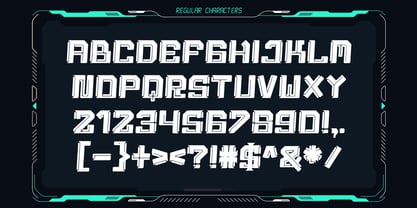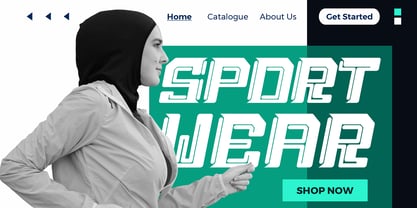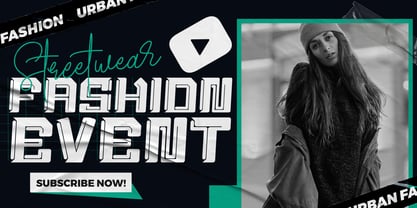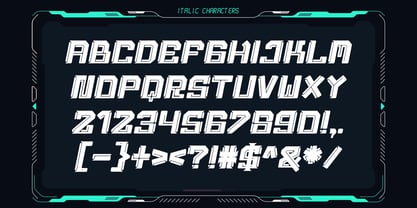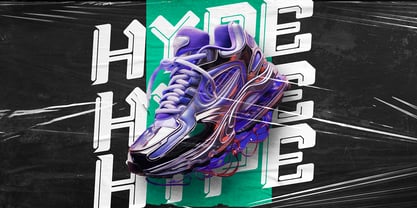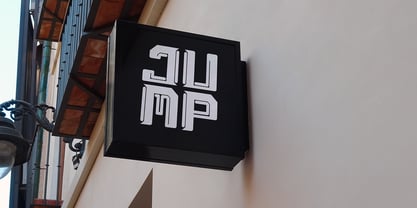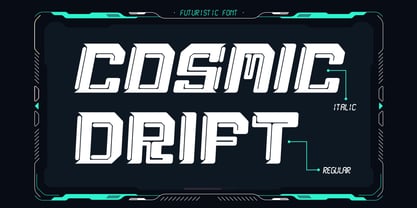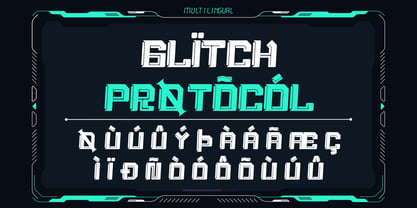
Cosmic Drift
by Sipanji21
Cosmic Drift is a modern futuristic typeface built with a strong sense of speed, precision, and technological energy. Designed with sharp modular angles and aerodynamic forms, this font brings the spirit of sci-fi racing, digital interfaces, and advanced machinery into bold display typography. With Regular and Italic styles, Cosmic Drift offers two distinct expressions—clean stability and forward motion—allowing designers to choose between steady power or high-speed dynamics. The letterforms are constructed with mechanical confidence, blending geometric rigidity with fluid directional cuts. Each stroke feels engineered, giving the typeface a sense of movement even when perfectly still. The Italic version amplifies the speed effect, making text appear as if it is drifting through a futuristic environment or accelerating toward the horizon. Inspired by cyber technology, space exploration, mech engineering, and sci-fi interfaces, Cosmic Drift is crafted for modern visual storytelling. Its bold silhouette and clean technical details help it stand out across digital screens, posters, esports graphics, and tech-driven branding projects. Despite the heavy structure, every letter remains highly readable, maintaining clarity across large titles and high-impact layouts. Cosmic Drift includes uppercase letters, numbers, punctuation, and multilingual support, offering designers complete flexibility for global usage and complex typographic needs. Its dual-style format makes it suitable for pairing within the same design—Regular for strength and Italic for acceleration—creating a cohesive futuristic system with built-in versatility. Perfect For • Tech branding and digital product identity • Sci-fi movie titles and futuristic posters • Racing themes, mech UI displays, and esports graphics • Gaming logos, HUD overlays, and interface mockups • Promotional banners, YouTube covers, and event visuals • Product packaging with a high-tech aesthetic Why Designers Choose Cosmic Drift delivers a bold futuristic character that feels engineered with purpose. The angled corners, deep cuts, and aerodynamic slants communicate motion, innovation, and technological strength. Designers choose it for its ability to transform simple text into a striking visual anchor—perfect for modern digital projects that demand impact and clarity. Unlike overly experimental sci-fi fonts, Cosmic Drift maintains a balanced structure. It’s dramatic enough to stand out in large titles yet clean and logical enough for consistent brand usage. The combination of Regular and Italic allows creative flexibility: strong, static headlines or fast-moving dynamic layouts. Cosmic Drift is the ideal choice for creators working in genres of cyberpunk, tech futurism, racing visuals, robotics, and advanced digital environments. It carries the essence of motion and innovation, making it a powerful typeface for the future-focused generation of designers.